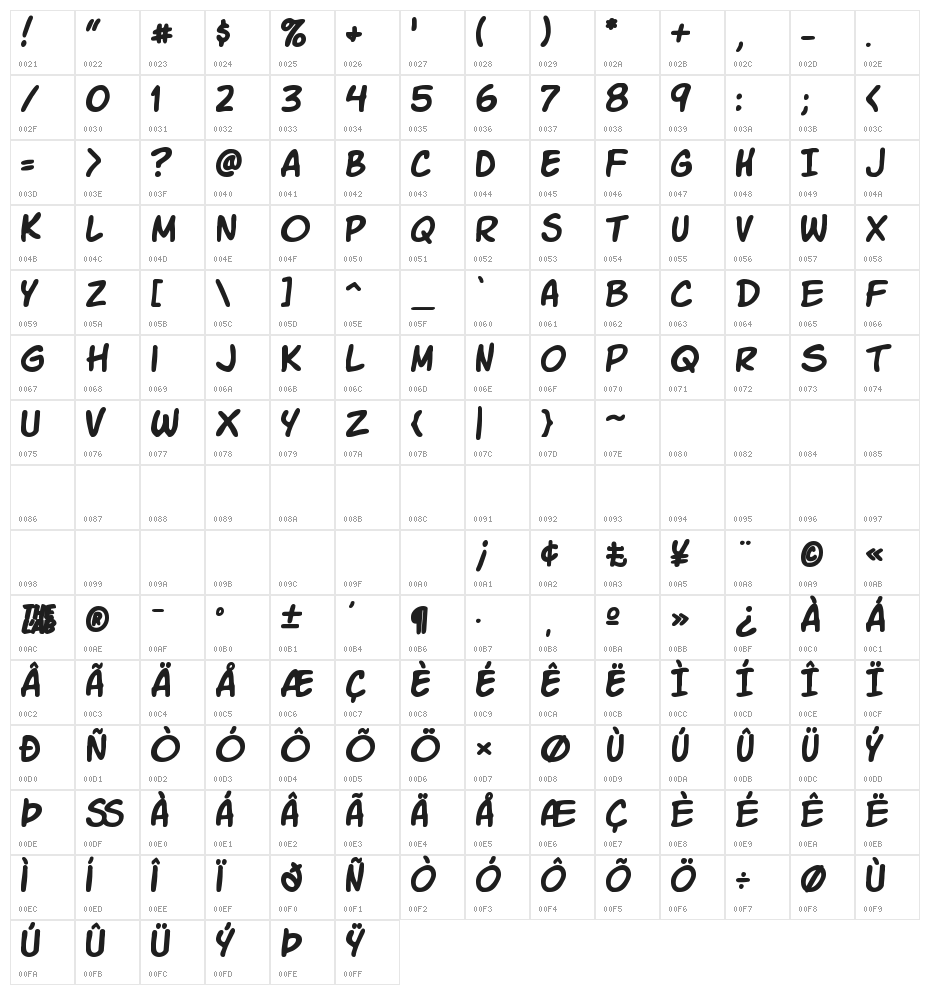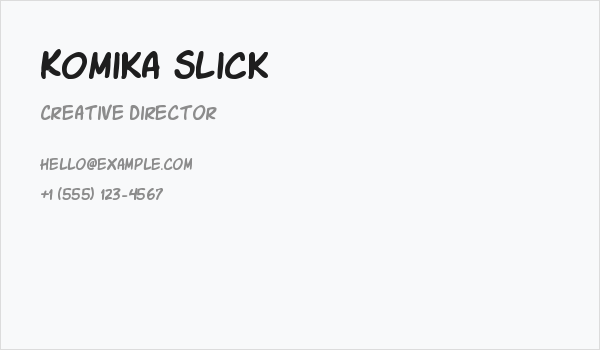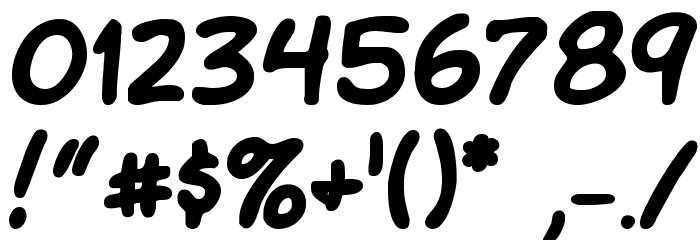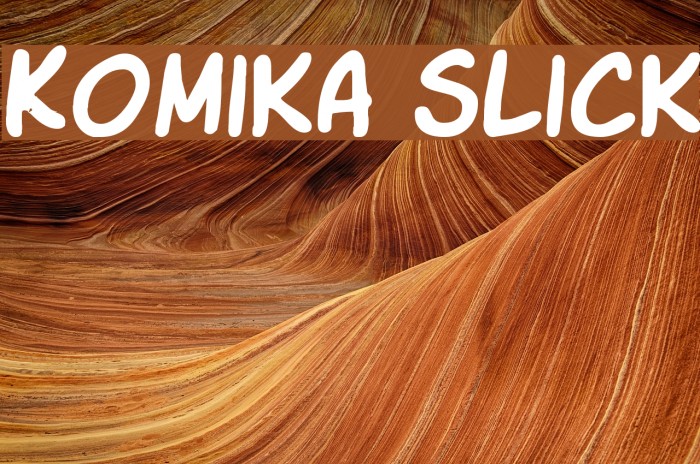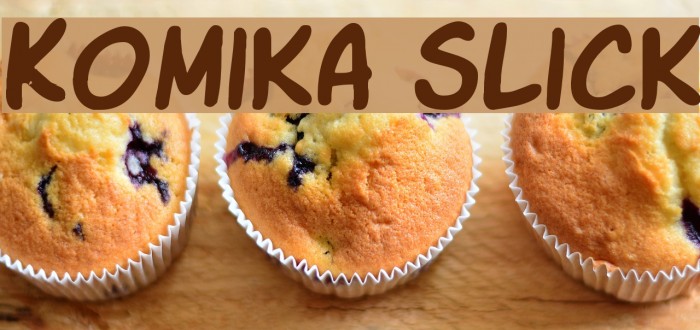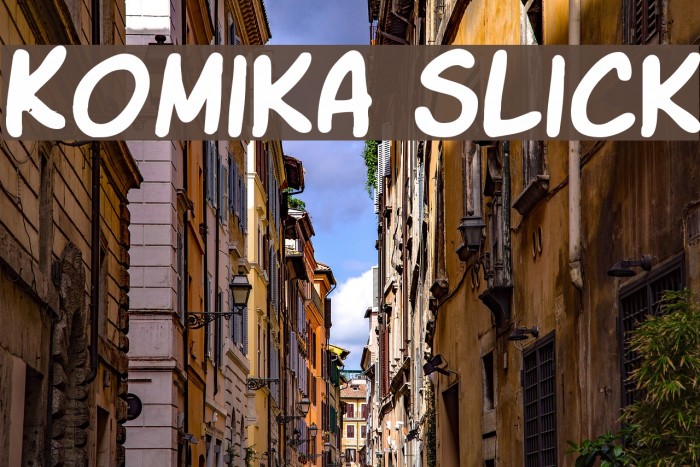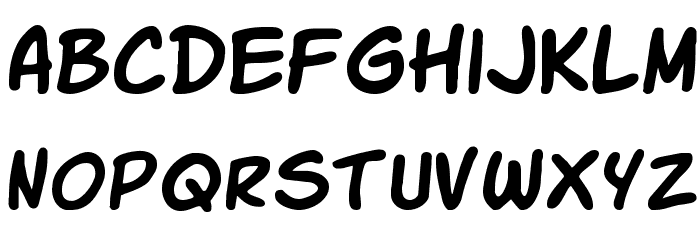
Komika Slick Font
Komika Slick Description
This playful and bold font exudes a comic book style with its thick, rounded strokes and informal appearance. The characters are slightly slanted, giving a dynamic and energetic feel. The uppercase and lowercase letters maintain a consistent style, with rounded edges and a friendly, approachable look. The numbers and special characters follow the same design principles, ensuring uniformity across the font. Its boldness makes it stand out, while the rounded shapes add a touch of whimsy and fun.
| Overall Style | Playful, Comic |
| Proposed Projects | Ideal for comic books, children's books, playful branding, and casual posters. |